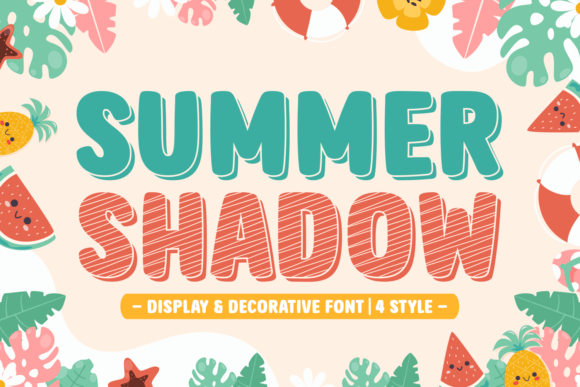
Enter Summer Shadow, the display font that will infuse your designs with an irresistible touch of whimsy and delight. This font is not just a collection of letters; it's a gateway to a world of boundless creativity, where imagination knows no bounds.
Picture this: you're working on a children's book, and the words need to dance off the page, captivating young minds with their playful charm. Summer Shadow is your magic wand, transforming ordinary text into a visual symphony that captivates and enchants. Its playful curves and cheerful strokes bring life to every character, inviting readers to embark on an unforgettable adventure with each turn of the page.
Or perhaps you're designing a playful restaurant menu, aiming to entice customers with a dash of lighthearted fun. Summer Shadow is the perfect sous chef, adding a sprinkle of whimsy to your culinary creations. Its cheerful presence makes every dish seem more delectable, turning the menu into an artistic masterpiece that teases the taste buds and sparks the imagination.
The versatility of Summer Shadow knows no bounds. Whether you're crafting personalized greeting cards, creating eye-catching presentations, or adding a touch of whimsy to your digital designs, this font is your steadfast companion. It effortlessly adapts to a myriad of projects, like a chameleon changing colors, enhancing each one with its unique charm.
So, embrace the magic of Summer Shadow and watch your creative ideas take flight. Let its playful spirit infuse your designs with an irresistible allure, leaving a lasting impression on all who encounter it.